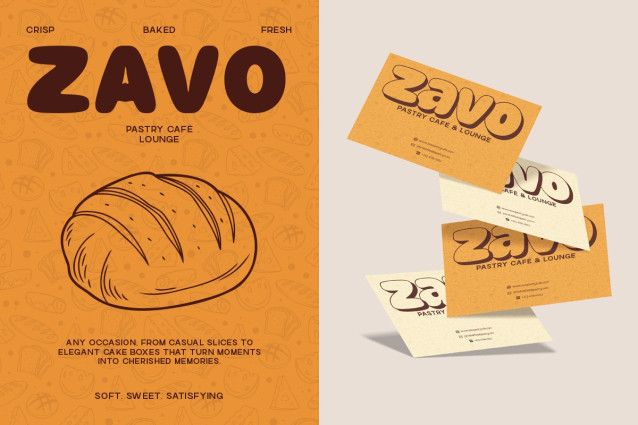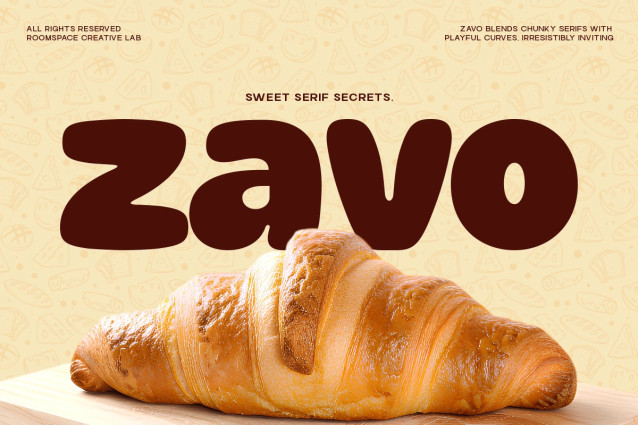
Zavo Font
Zavo Font is designed to feel warm, fun, and approachable, combining thick strokes with rounded geometry to create a loud yet lovable personality. The tone is cheerful, expressive, and modern, perfect for brands that want to feel welcoming, energetic, and memorable. Zavo brings big letter energy without sharp edges, making it ideal for food brands, cafés, kids products, packaging, and playful digital identities.
Zavo Sans a is hunky sans-serif display font created to feel fun, friendly, and full of energy. With its bold weight and rounded shapes, Zavo is perfect for brands that want to stand out while staying warm and approachable. From café branding to packaging and playful headlines, Zavo adds character without sacrificing readability